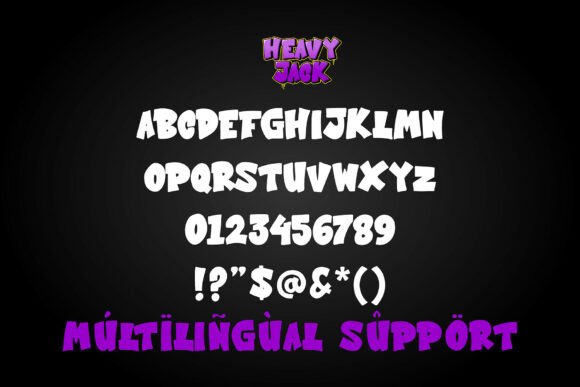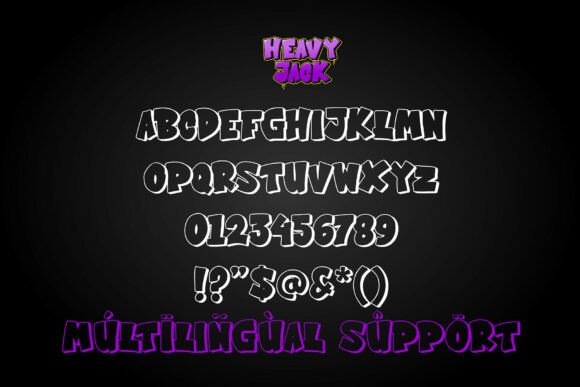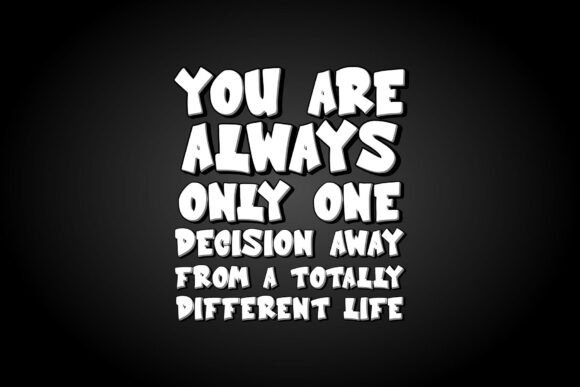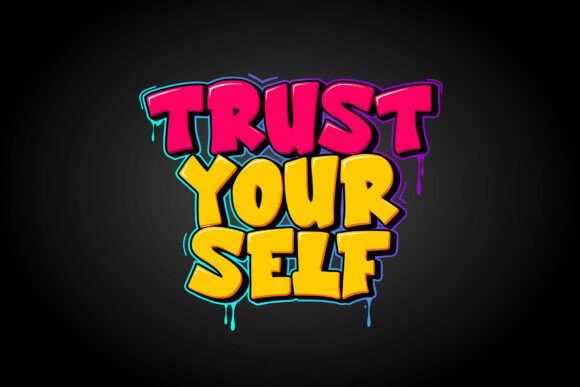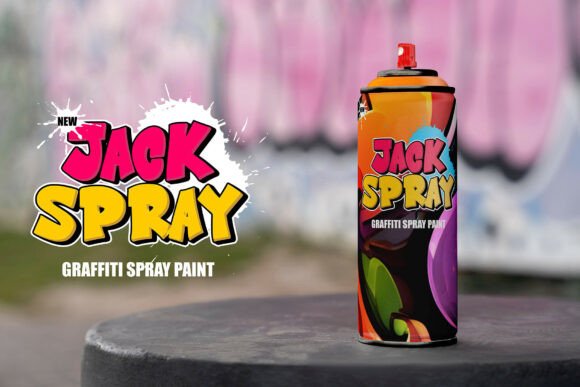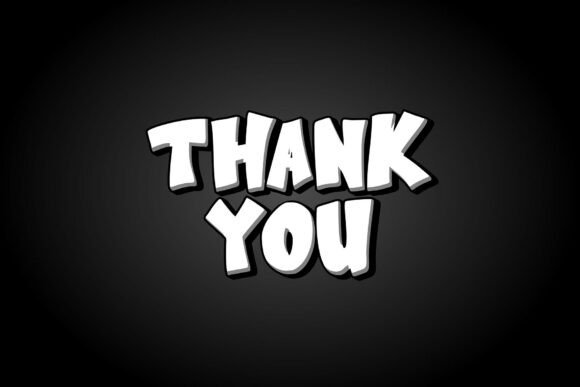
Introduction to Heavy Jack Font
Have you ever stumbled upon a design that instantly sparks your creativity? That’s exactly what happened when I first laid eyes on the Heavy Jack Font. Its bold, graffiti-inspired aesthetic is a perfect blend of raw energy and sophistication, making it a game-changer for any creative project. Whether you’re a seasoned designer or a crafty enthusiast, this versatile font is sure to add an unmissable touch to your work.
As a valuable design resource, Heavy Jack Font offers a unique set of features that set it apart from other fonts. With three customizable layers – solid, shadow, and outline – you can create a high-quality design that exudes an authentic urban vibe. Plus, its transparent background makes it easy to use as a free download for your Cricut or Silhouette crafts. Whether you’re creating stickers, clothing, posters, or skate graphics, Heavy Jack Font is the perfect choice for adding a dash of raw, authentic energy to your projects.
Key Features of Heavy Jack Font
- Unique, bold design ideal for creative projects and designs with a rugged, industrial feel.
- Features a transparent background, allowing for effortless layering and customization in your design.
- High-quality design, available in a range of sizes, including 1, 2, and 3D styles, to suit your specific design needs.
- Resolution-independent, ensuring crisp and clear display on any screen or print medium.
- Perfect for designers seeking a distinctive, heavy font to elevate their creative project.
- Comes in a range of weights, from light to heavy, allowing for versatile use in various design contexts.
Honest Review: Heavy Jack Font
As a designer, I’ve had my fair share of experimenting with various fonts for my creative projects. Recently, I stumbled upon the Heavy Jack Font, and I must say, it’s a game-changer.
- The Heavy Jack Font is incredibly versatile and can be used for a wide range of design projects, from posters to social media graphics.
- The font’s high quality is evident in its crisp and clean lines, making it perfect for designs that require a professional touch.
One of the standout features of the Heavy Jack Font is its transparent background, which makes it easy to use with any design asset.
- The font may not be suitable for designs that require a more delicate or cursive touch.
- The font’s bold and edgy design may not appeal to designers who prefer more subtle fonts.
Overall, I’m thoroughly impressed with the Heavy Jack Font, and I highly recommend it as a valuable design resource. Its high quality, versatility, and free download make it a must-have for any designer working on a creative project.
Heavy Jack Font is commonly used in creative projects, such as logos, icons, graphics, and presentations. It’s also a great resource for designers who want to add a unique touch to their designs. With its high-quality design and transparent background, Heavy Jack Font is a valuable addition to any design resource library.